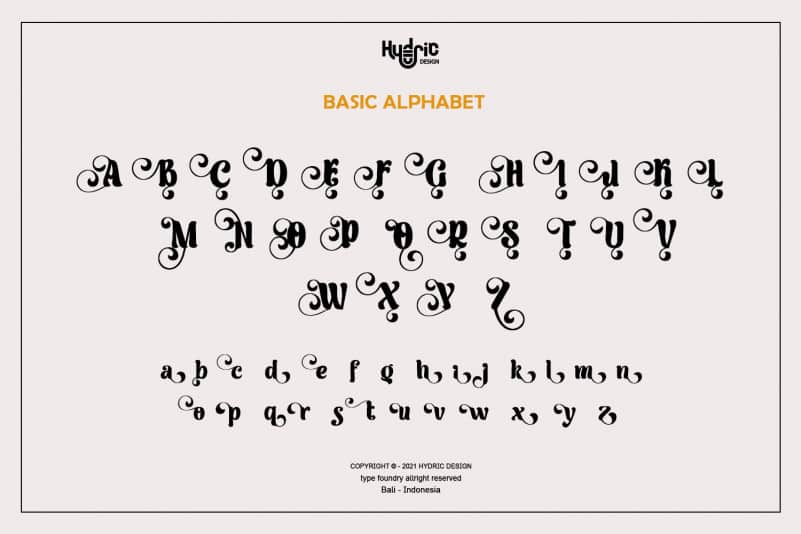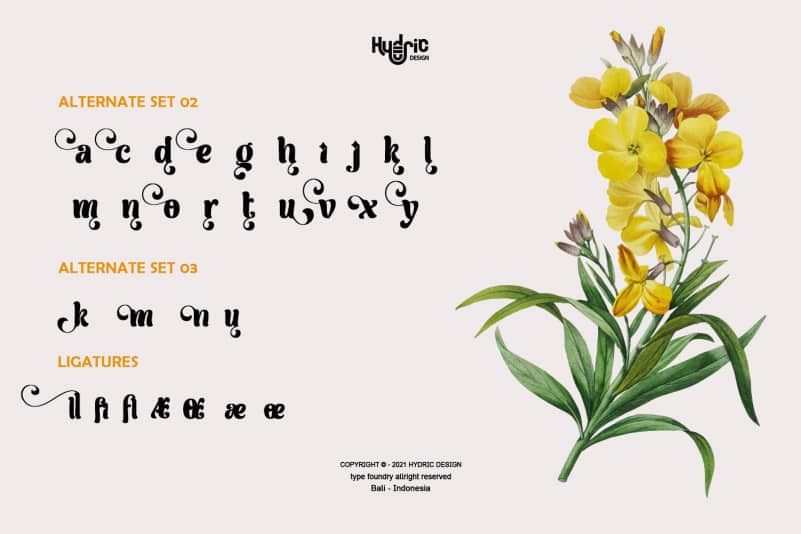
Milli Display Typeface
Milli Display Typeface is a stylish luxury serif. It’s clean and have the smooth, also playful and versatile serif family with 40+ ligatures and 100+ alternates that you can combine to get curves and beautiful shapes just in seconds.
type the words, This font is suitable for use in many design forms, for example magazines, postcards, logos, DIY Projects, invitation card, quotes, vintage look design, old classic ,60s, 70s, 80s era, wedding projects and much more. We recommend using Adobe Illustrator or Photoshop.